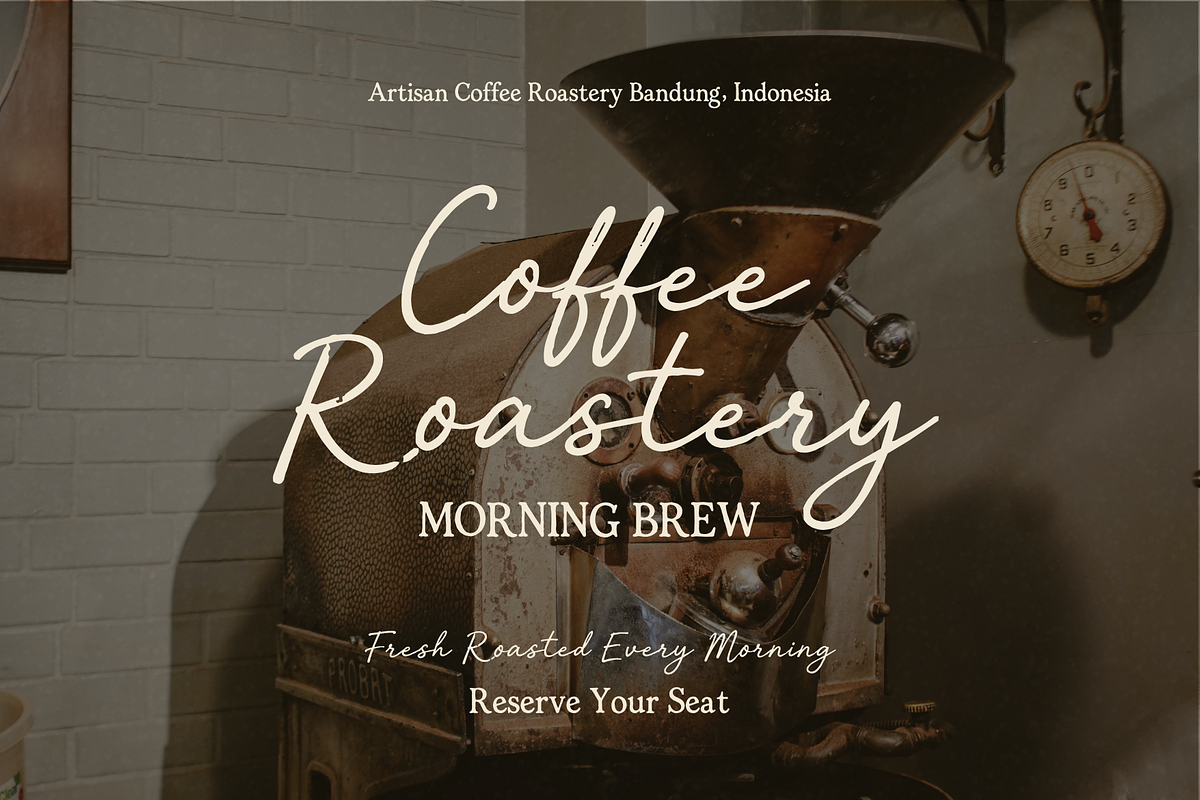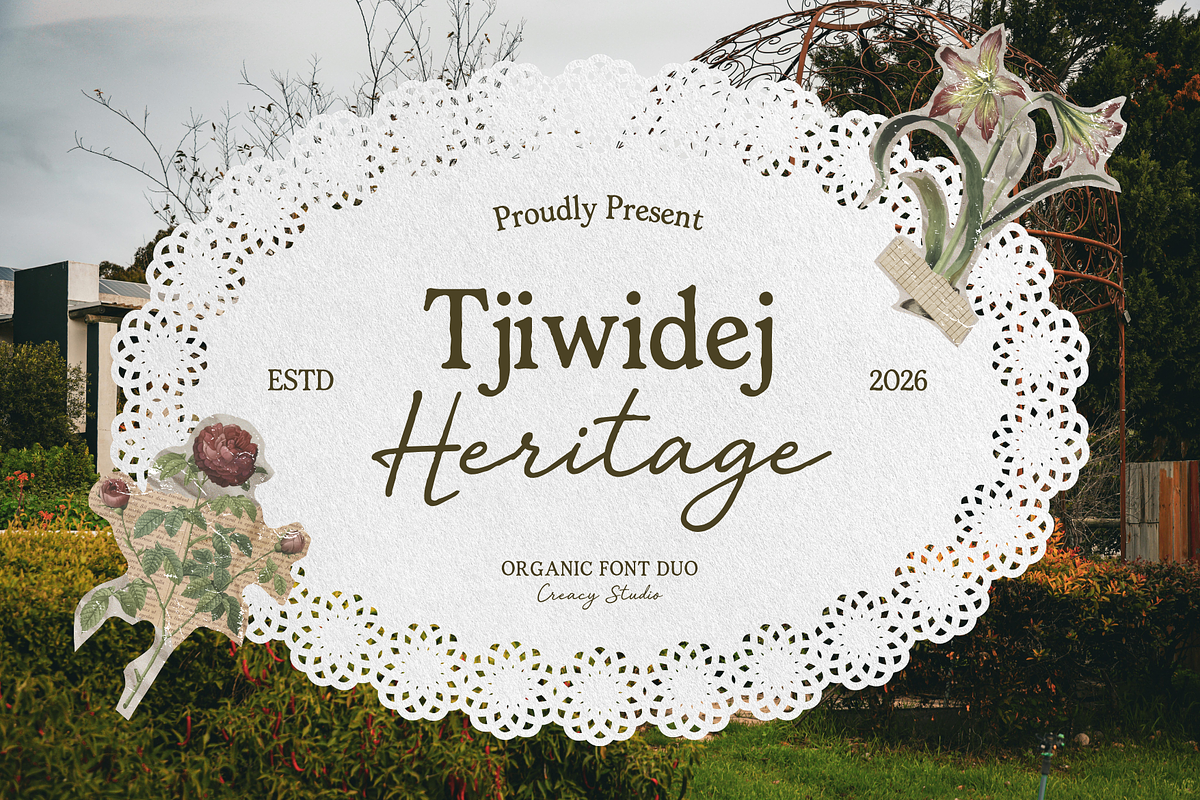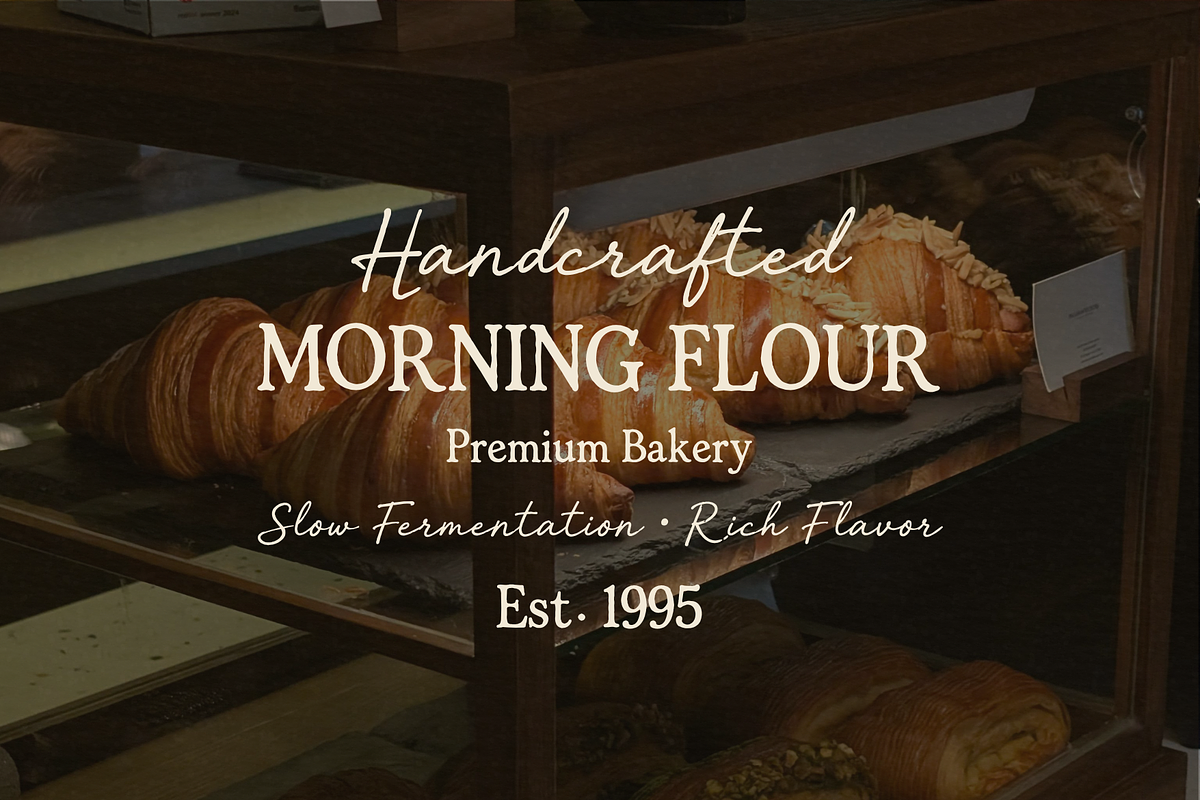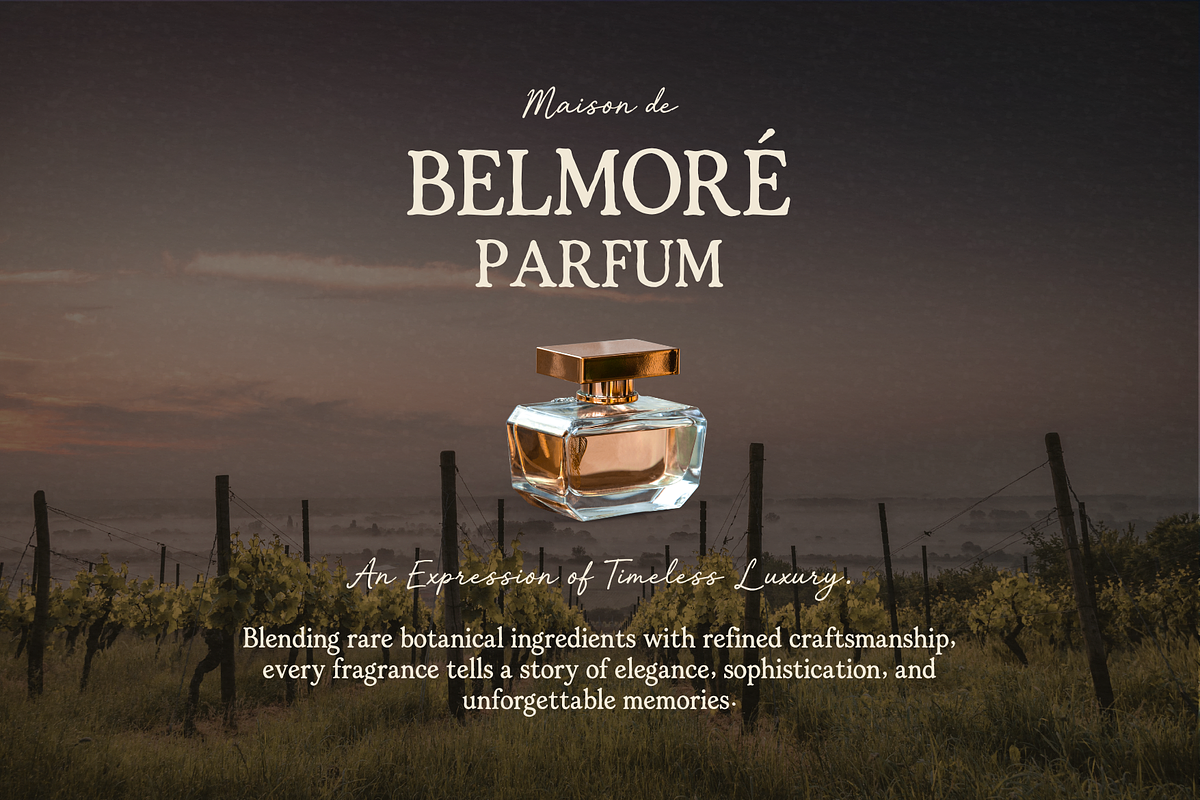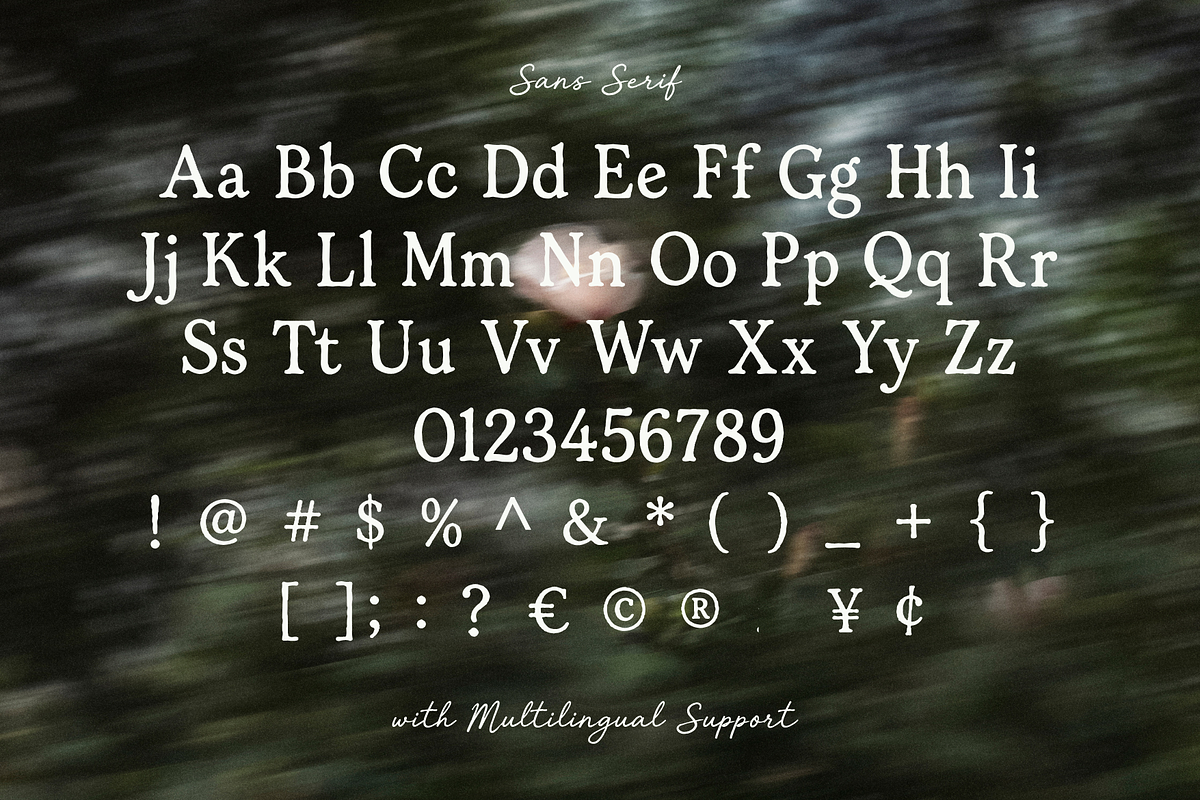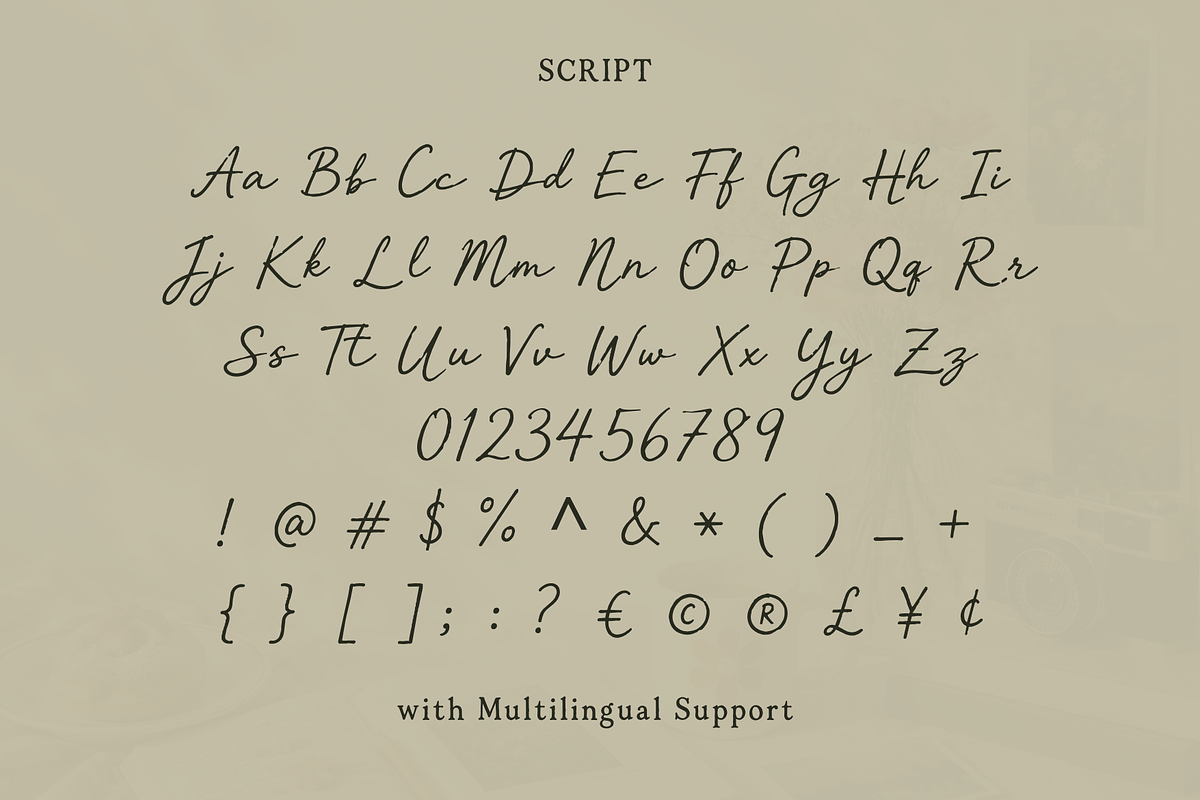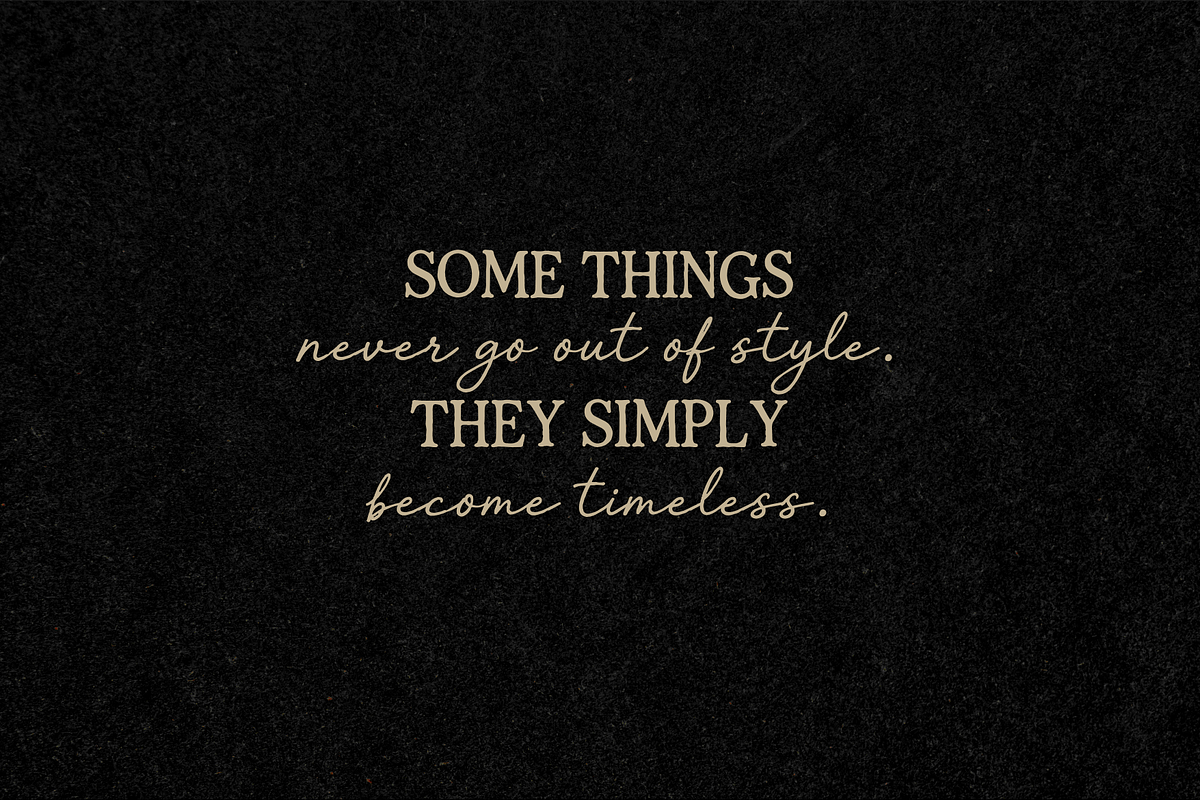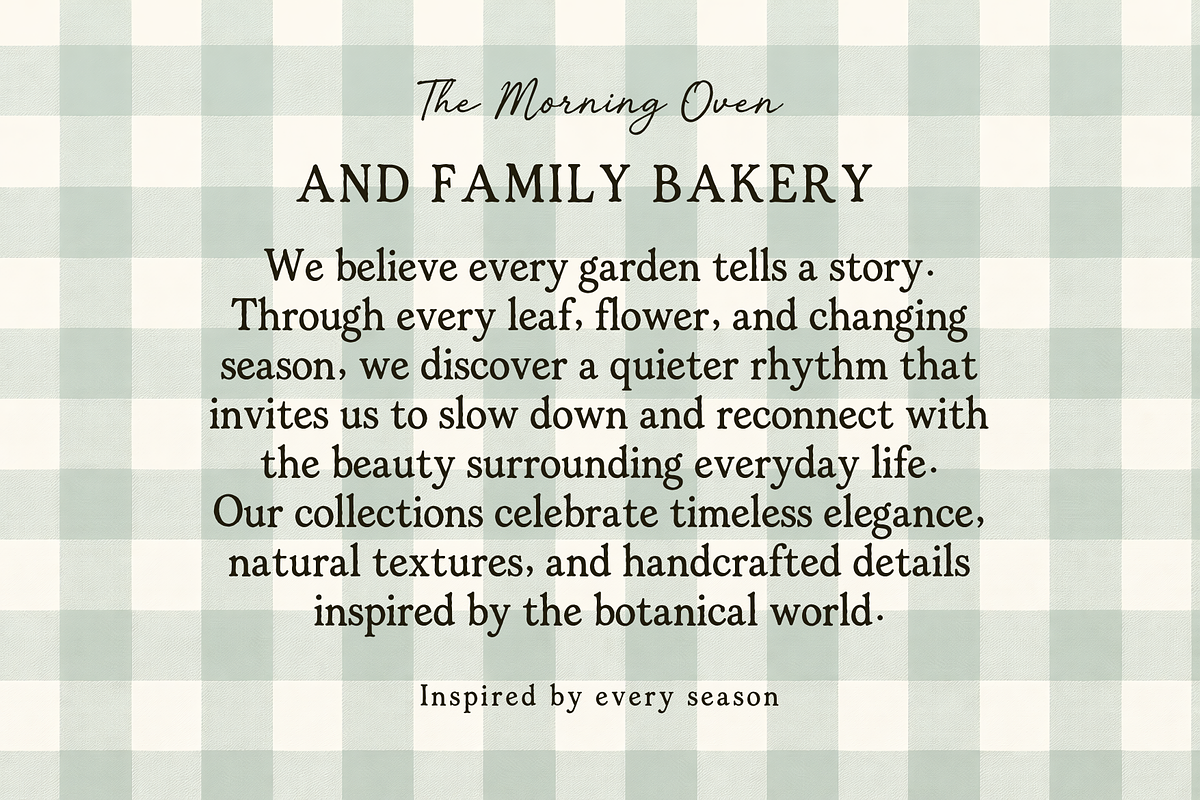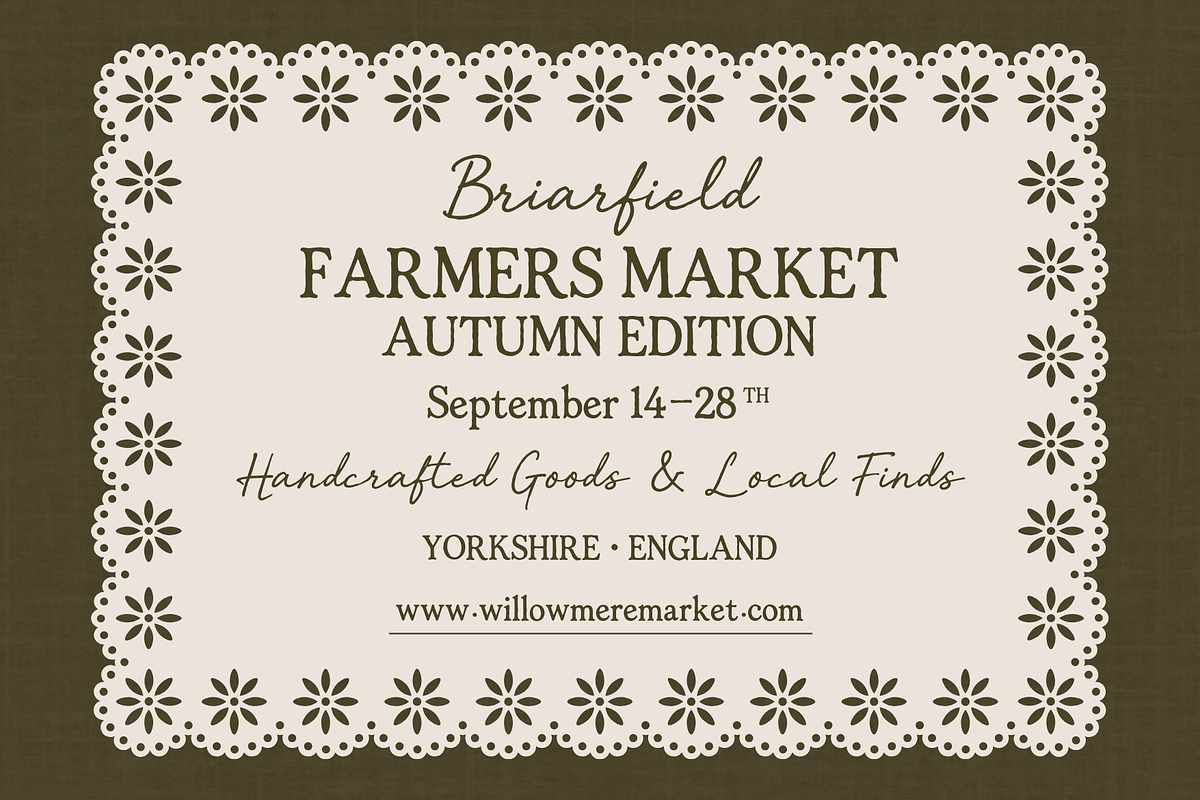
Tjiwidej Heritage – Serif & Script
Inspired by the timeless beauty of Indonesian heritage and vintage craftsmanship, Tjiwidej Heritage is a sophisticated font duo that combines an elegant serif with a natural handwritten script. This carefully crafted pairing creates a harmonious balance between classic refinement and organic personality, making it a versatile choice for premium branding and editorial design.
The serif font features graceful letterforms with distinctive details that convey luxury, tradition, and confidence, while the accompanying script adds warmth, authenticity, and handcrafted charm. Together, they provide endless creative possibilities for designers looking to build memorable visual identities.
Whether you're creating a luxury logo, wedding stationery, product packaging, or social media content, Tjiwidej Heritage delivers a polished and professional look that stands out across both print and digital projects.
Luxury branding
Logo design
Wedding invitations
Product packaging
Cosmetic and skincare branding
Boutique fashion labels
Restaurant & café branding
Editorial layouts
Magazine headlines
Book covers
Quotes & inspirational posters
Website headers
Marketing materials
Signature branding
Elegant Serif Font
Natural Handwritten Script
Tjiwidej Heritage is designed for creatives who appreciate timeless typography with a modern touch. Its classic serif structure paired with expressive script lettering allows you to create elegant, authentic, and premium-quality designs effortlessly.
Bring heritage-inspired elegance into your next creative project with Tjiwidej Heritage Serif & Script Font Duo.